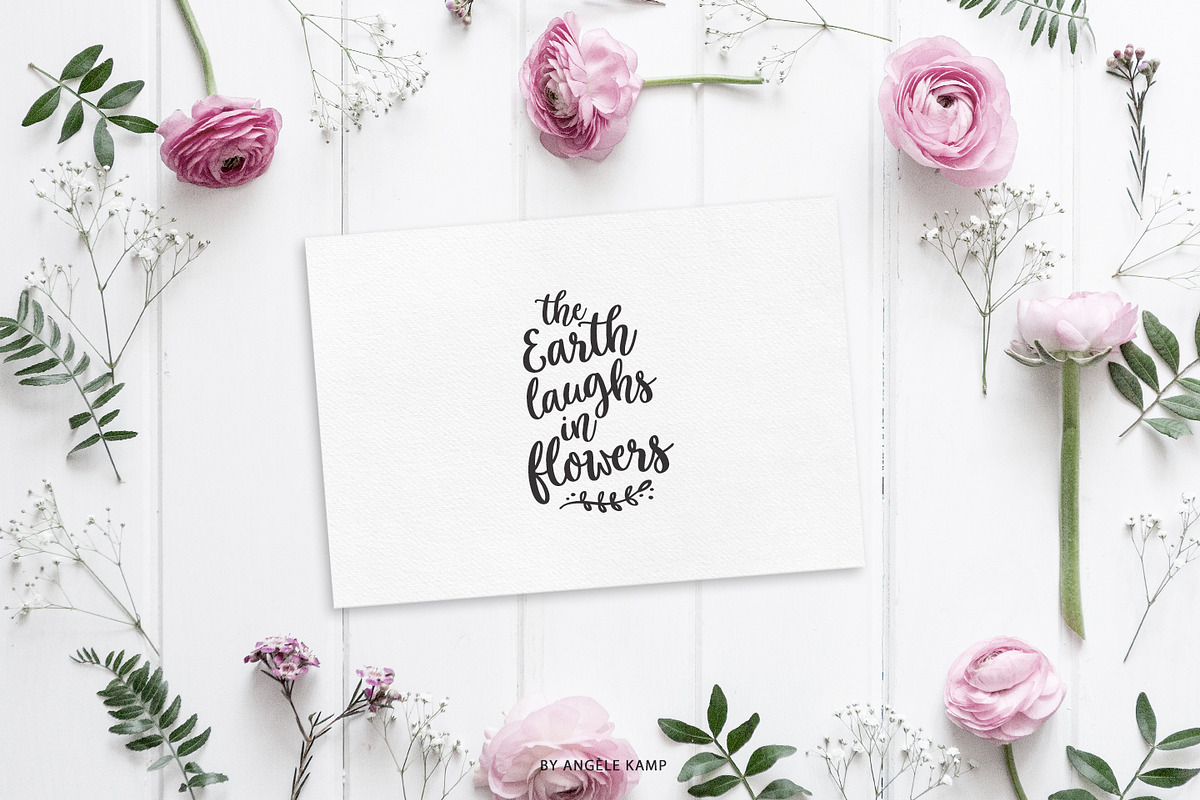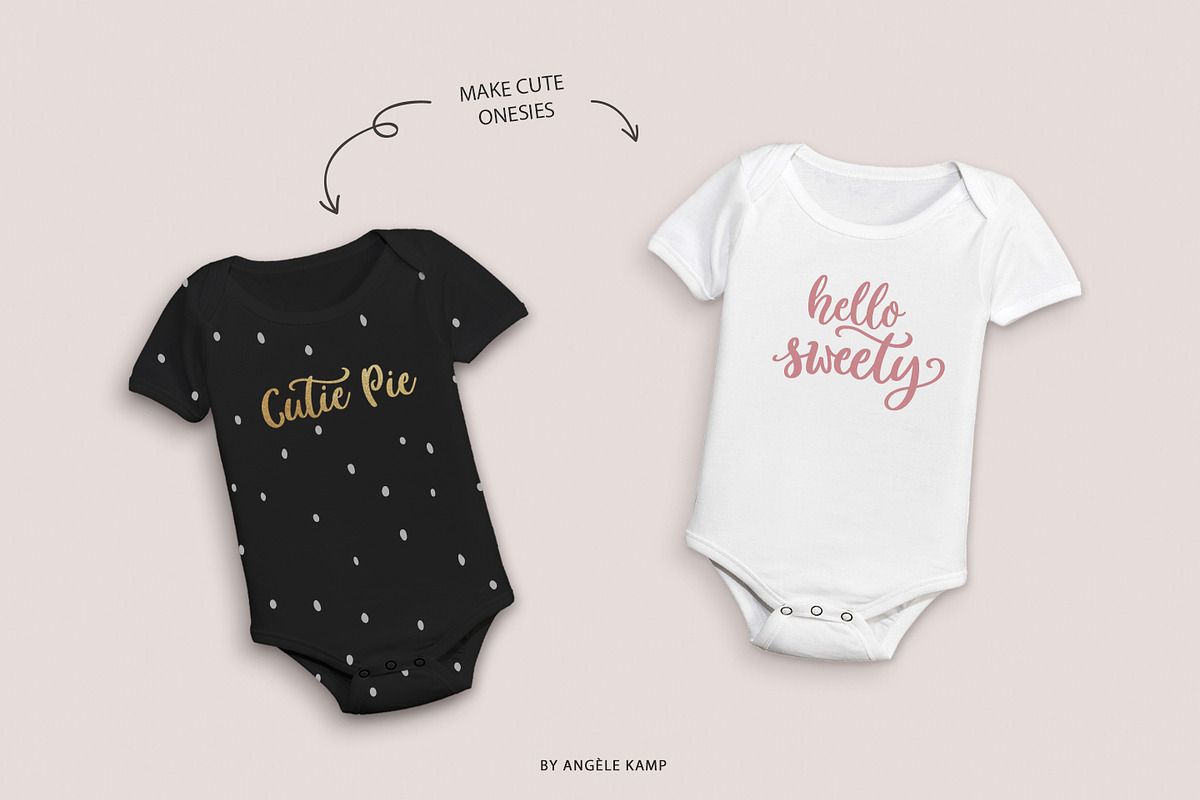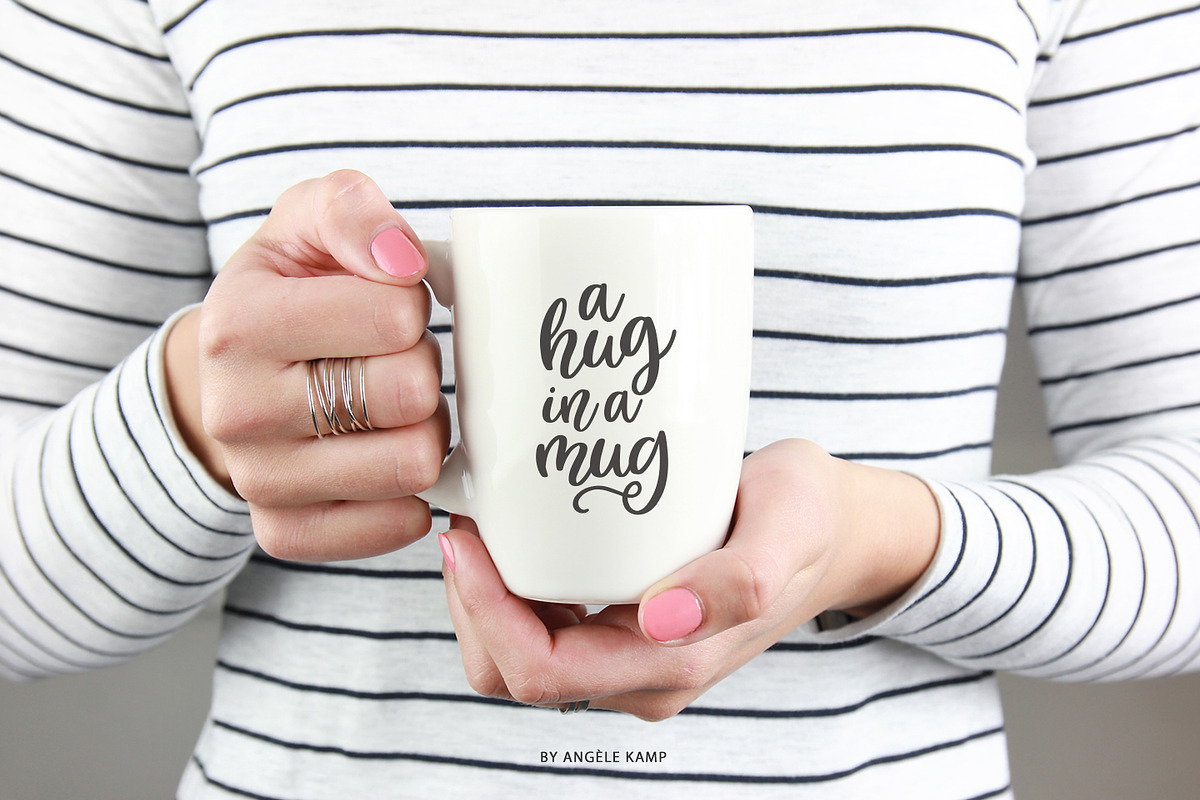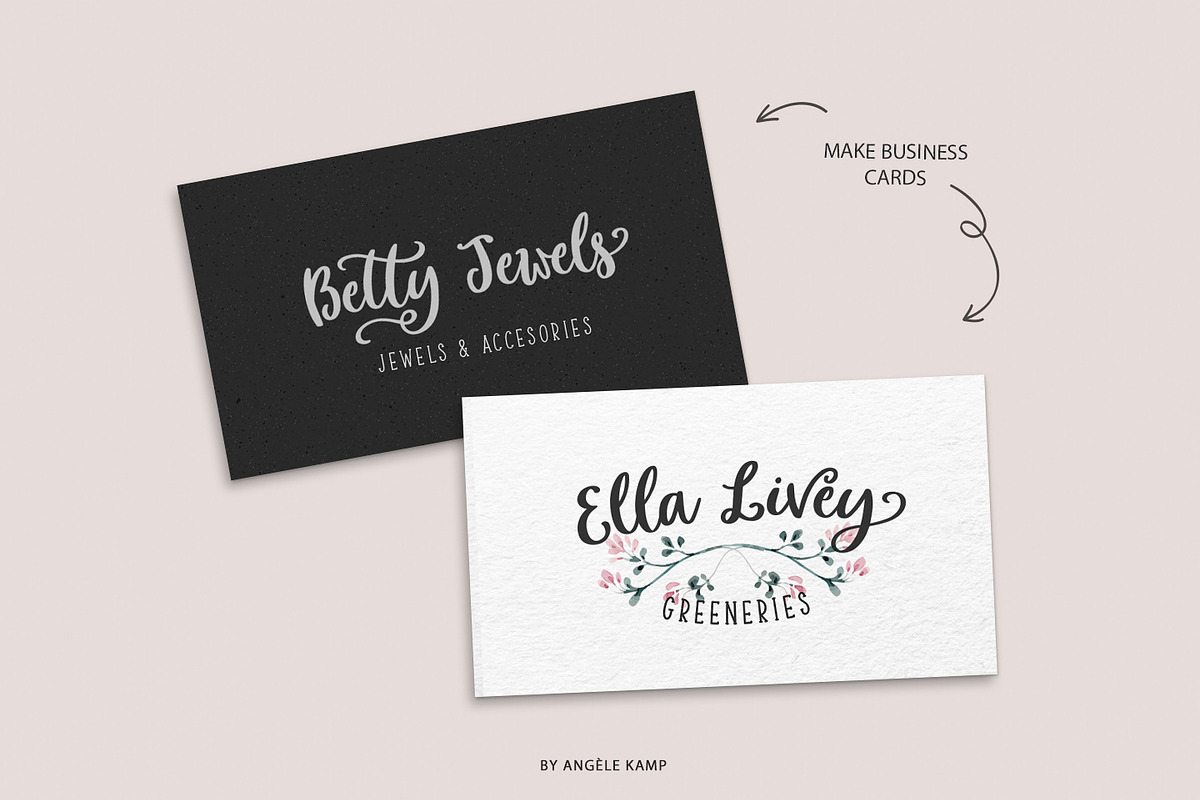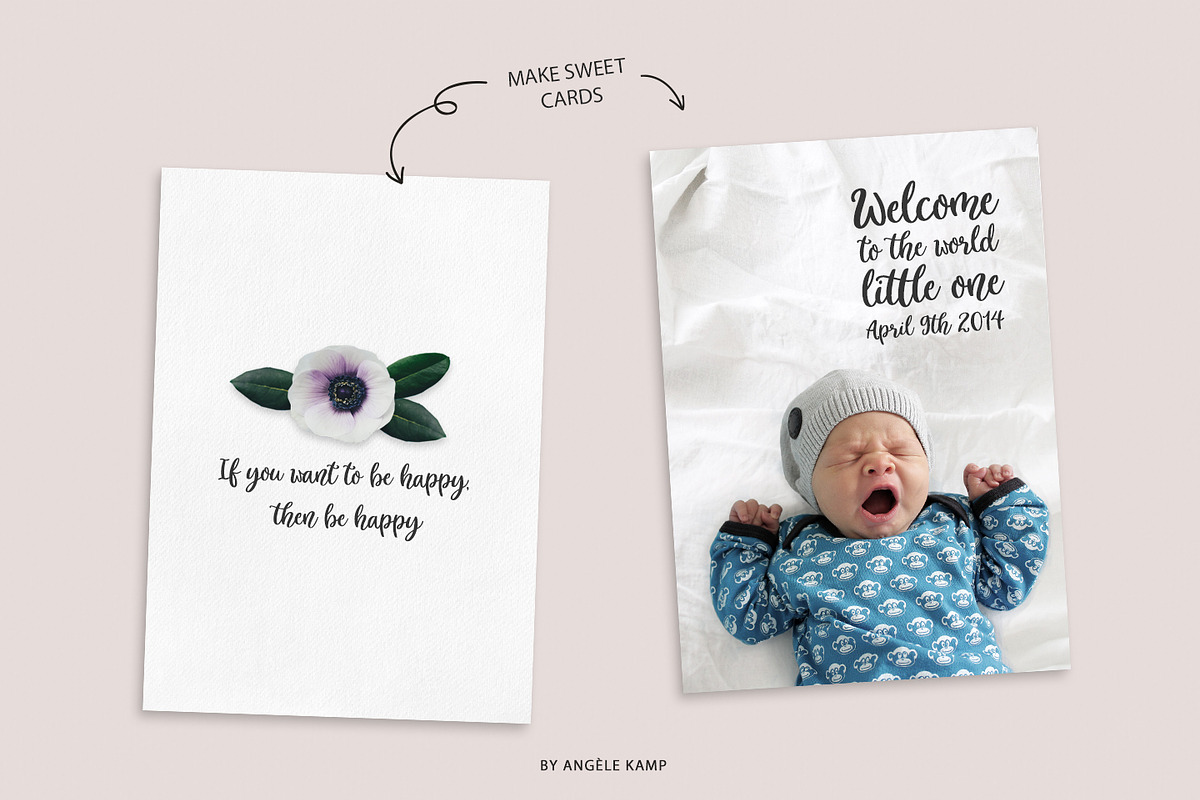
Sweet Mia modern calligraphy font
Sweet Mia modern calligraphy font by Angele Kamp is a font selected for branding, posters, packaging, typography.
Why Sweet Mia modern calligraphy font is worth a look
Sweet Mia modern calligraphy font by Angele Kamp fits naturally into Branding, posters, packaging, typography.